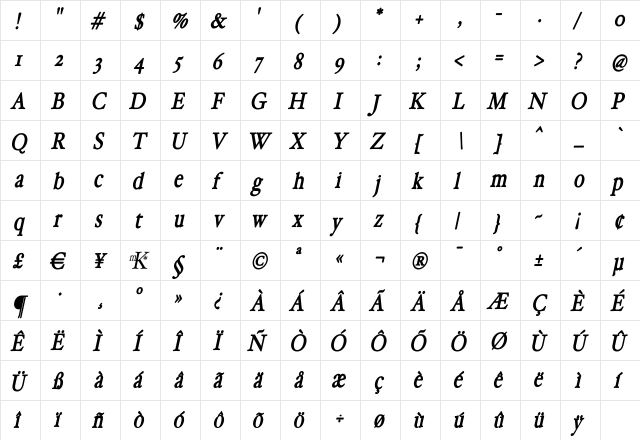
HollaMediaeval Bold Italic
Design Context for HollaMediaeval Typeface
HollaMediaeval takes a measured approach to typography — its balanced proportions and neutral character make it a reliable workhorse for both digital and print work. The slanted form adds forward momentum and visual energy. Its bold stroke weight gives it real presence on the page.
Pro Tip: Use HollaMediaeval for emphasis, pull quotes, and subheadings where its slanted energy can add rhythm to the layout.